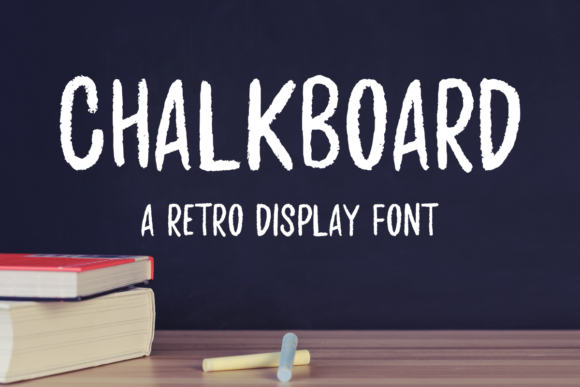
Creating a Timeless Look: The Allure of Chalkboard Font
Have you ever sat in a classroom, scribbling notes on a worn chalkboard, and felt a sense of nostalgia wash over you? There’s something special about the way the chalk scrawls across the surface, leaving behind a trail of imperfections and character. This tactile experience is exactly what the Chalkboard Font captures, bringing a piece of that nostalgia into the digital world.
As a versatile display font, Chalkboard is perfect for adding a touch of authenticity to quotes, teaching materials, or any design that requires a personal touch. Its brushed texture and distressed look evoke a sense of warmth and realism, making it a valuable asset for designers looking to create engaging and memorable designs.
Chalkboard Font Key Features
- Font Family: A custom-designed font family, inspired by traditional chalkboard writing, with a distressed and vintage look.
- Unique Characteristics: Distressed texture, vintage look, and a subtle “chalky” feel, giving your designs a unique and nostalgic touch.
- Font Pairing: Designed to pair well with clean, modern fonts, making it an excellent choice for creating a balanced and visually appealing design.
Designer Review: Chalkboard Font
Overall, I think the Chalkboard Font is a great choice for casual, playful projects. ✨ The font is easy to read and has a lot of character. The imperfections and rough edges give it a hand-written feel that’s perfect for invitations, menus, or other design elements where you want to convey a sense of informality.
One of the things I like most about this font is its versatility. ✨ It comes in a range of weights and styles, from light and delicate to bold and playful. It’s also very easy to customize, with a lot of options for adjusting the spacing and alignment.
- Easy to read and understand
- Perfect for casual, playful projects
- Works well in a range of weights and styles
- May not be suitable for formal or professional projects
- Can be difficult to use in large blocks of text
- May not be as effective in digital formats
Overall, I think the Chalkboard Font is a great choice for designers who want to add a touch of whimsy and personality to their projects. While it may not be suitable for every project, it’s a great option for casual, playful designs.
Chalkboard Font is commonly used for:
1. Educational materials, such as worksheets and posters.
2. Decorative text for events and parties.
3. Branding and marketing materials, such as social media graphics and flyers.
4. Personalized gifts and invitations.
Great Vibes is a modern, elegant script font that works well for titles and headings. It’s perfect for designs that need a touch of sophistication and elegance. When to use: Fashion, luxury, and high-end designs.
Compared to Chalkboard Font, Great Vibes is more refined and less casual. While Chalkboard Font has a rustic, handwritten feel, Great Vibes is more polished and sophisticated.
Playfair Display is an elegant, high-end serif font that’s perfect for luxury and high-end designs. It’s a great choice for titles and headings that need to stand out. When to use: Fashion, luxury, and high-end designs.
Compared to Chalkboard Font, Playfair Display is more refined and less casual. While Chalkboard Font has a rustic, handwritten feel, Playfair Display is more polished and sophisticated, with a touch of luxury.